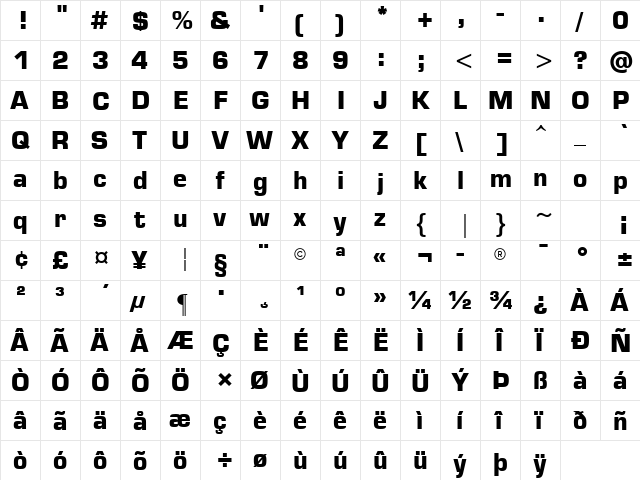
Microstyle ATT Bold Font Preview
Microstyle ATT Bold
Microstyle ATT Bold Font Details
Design Context for Microstyle ATT Typeface
Microstyle ATT takes a measured approach to typography — its balanced proportions and neutral character make it a reliable workhorse for both digital and print work. The heavy weight commands attention and anchors typographic hierarchies.